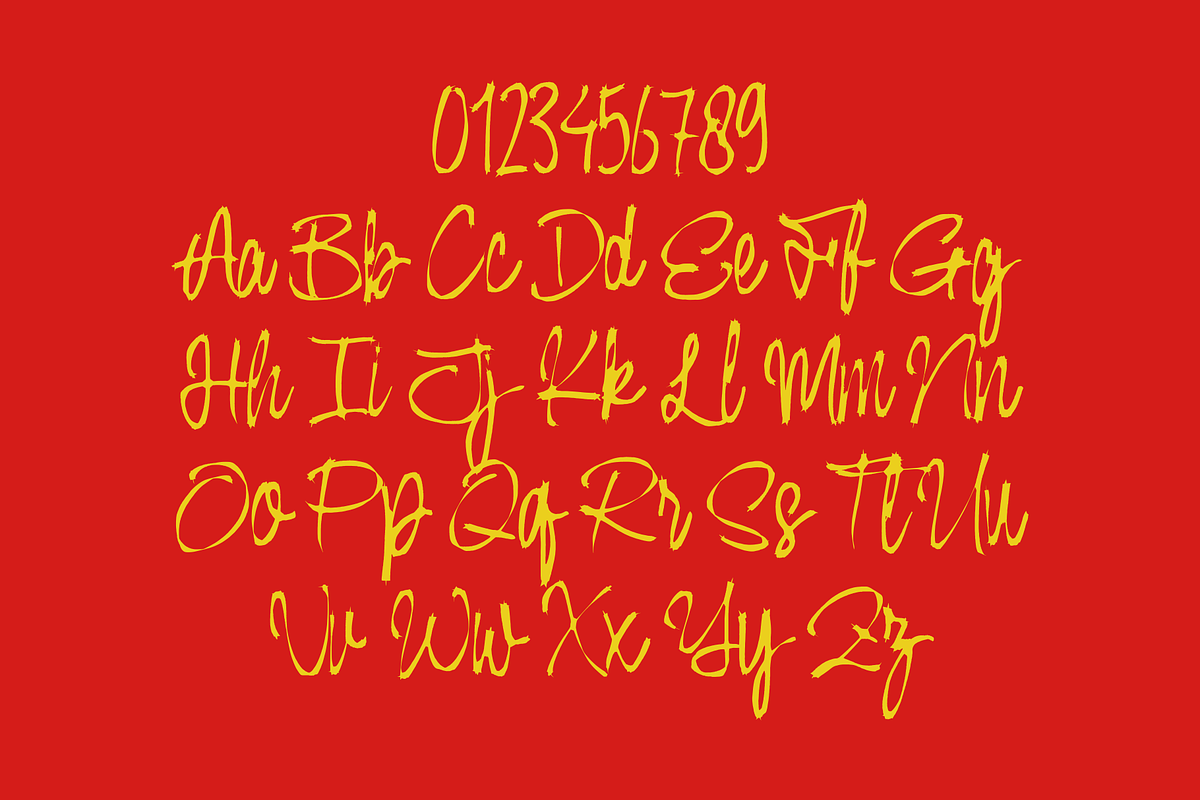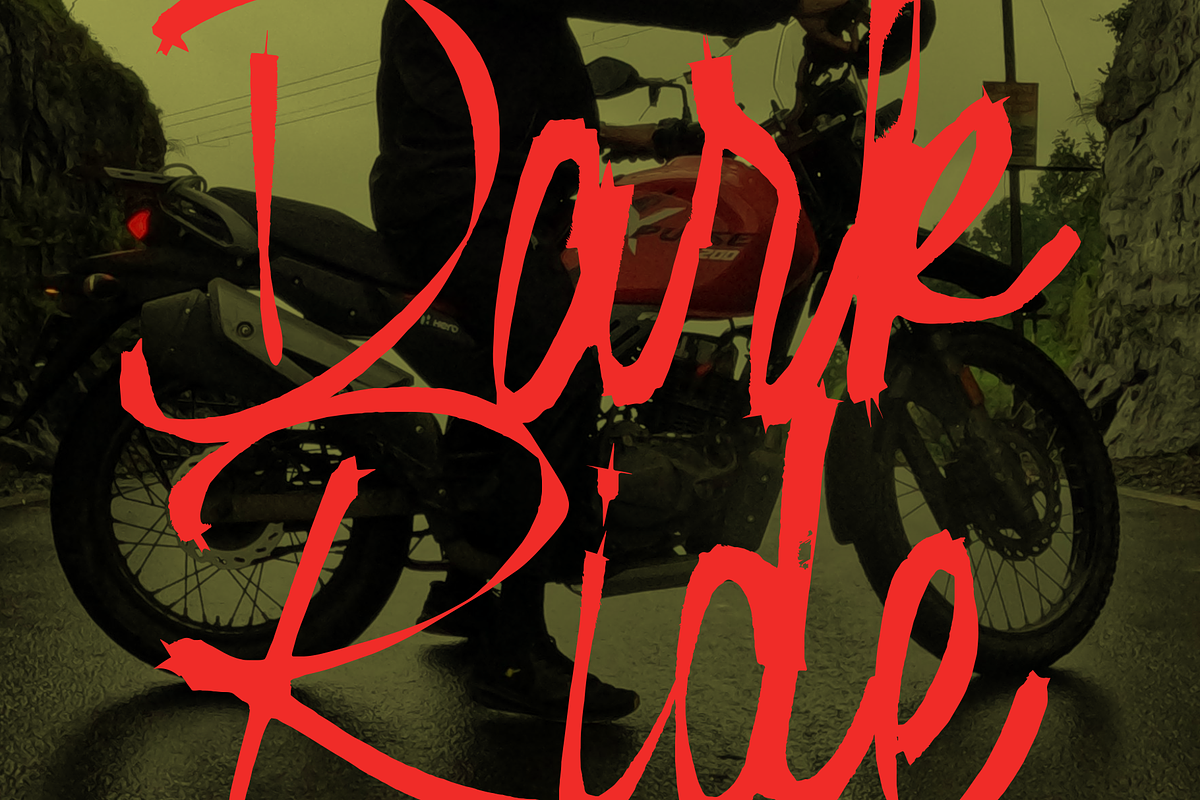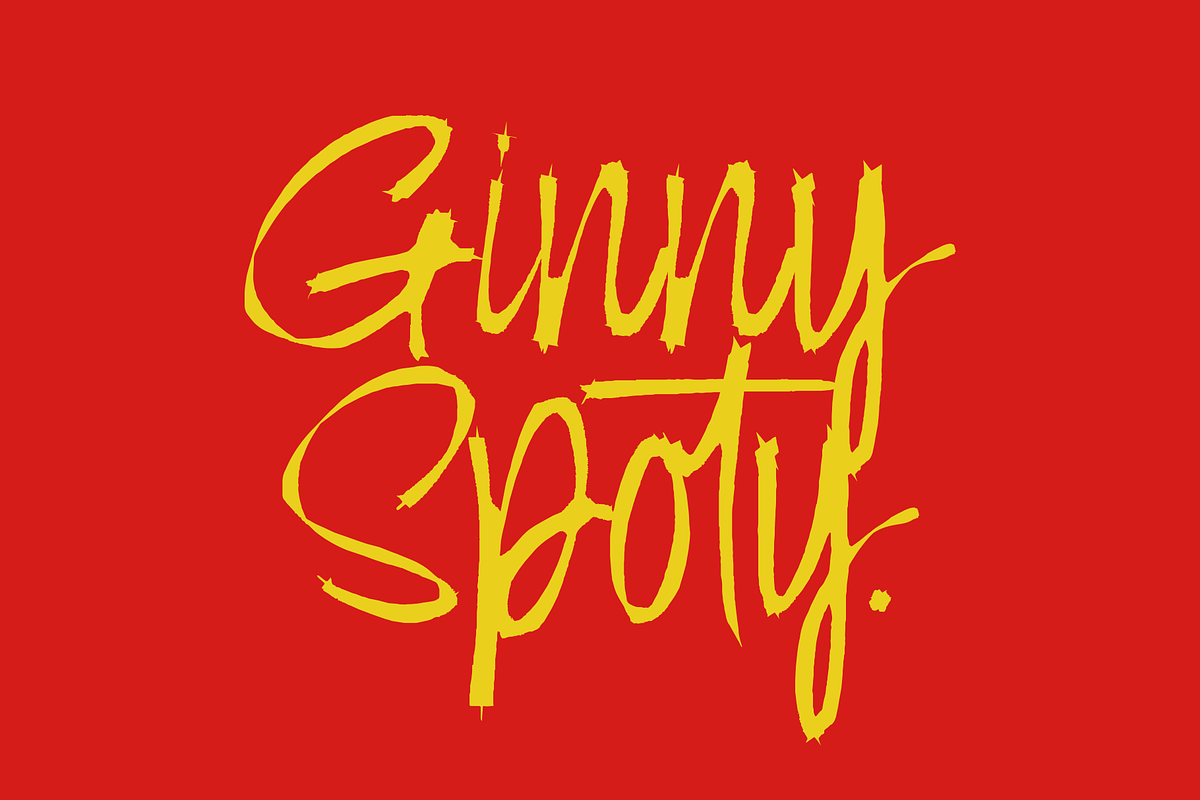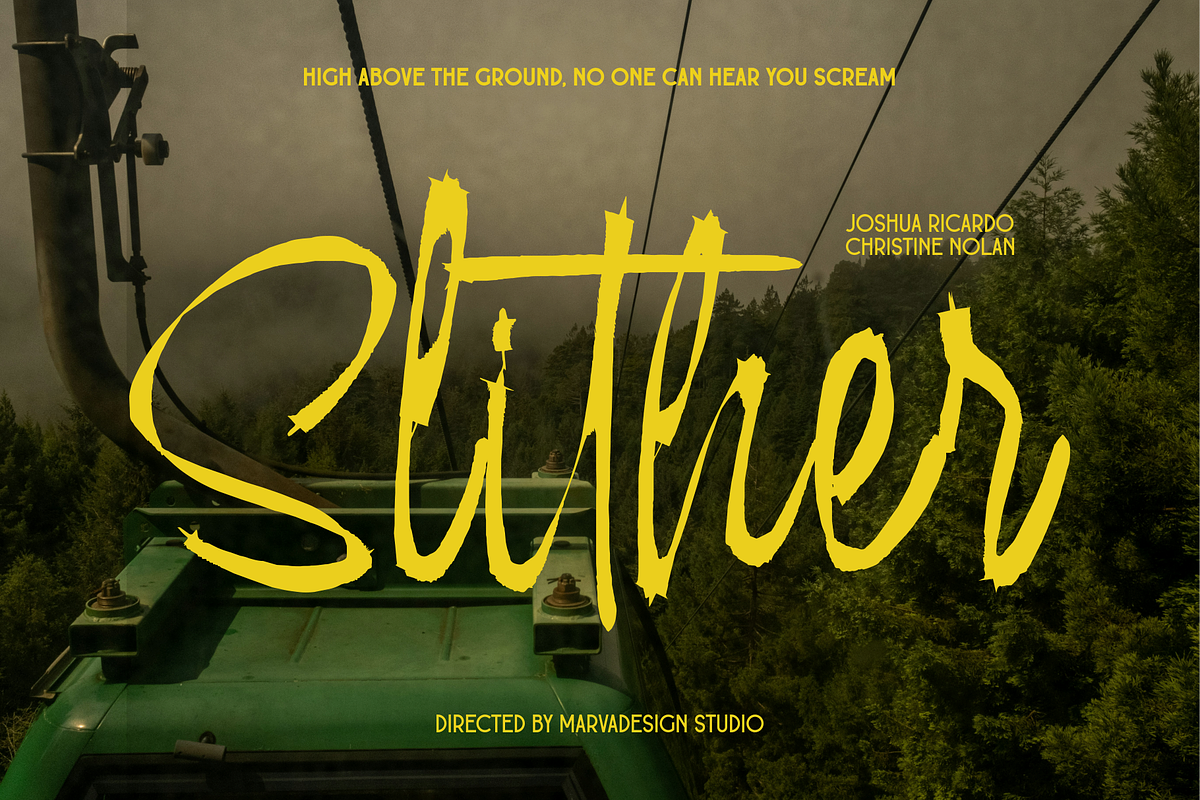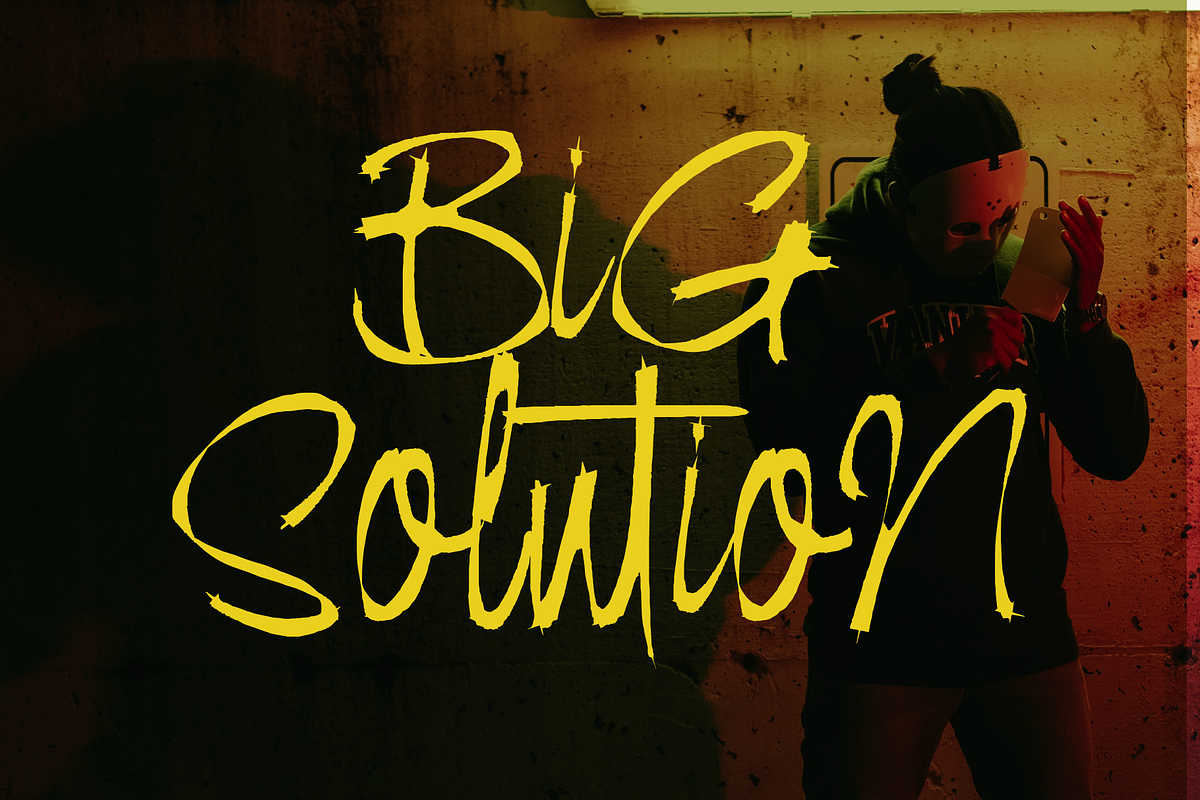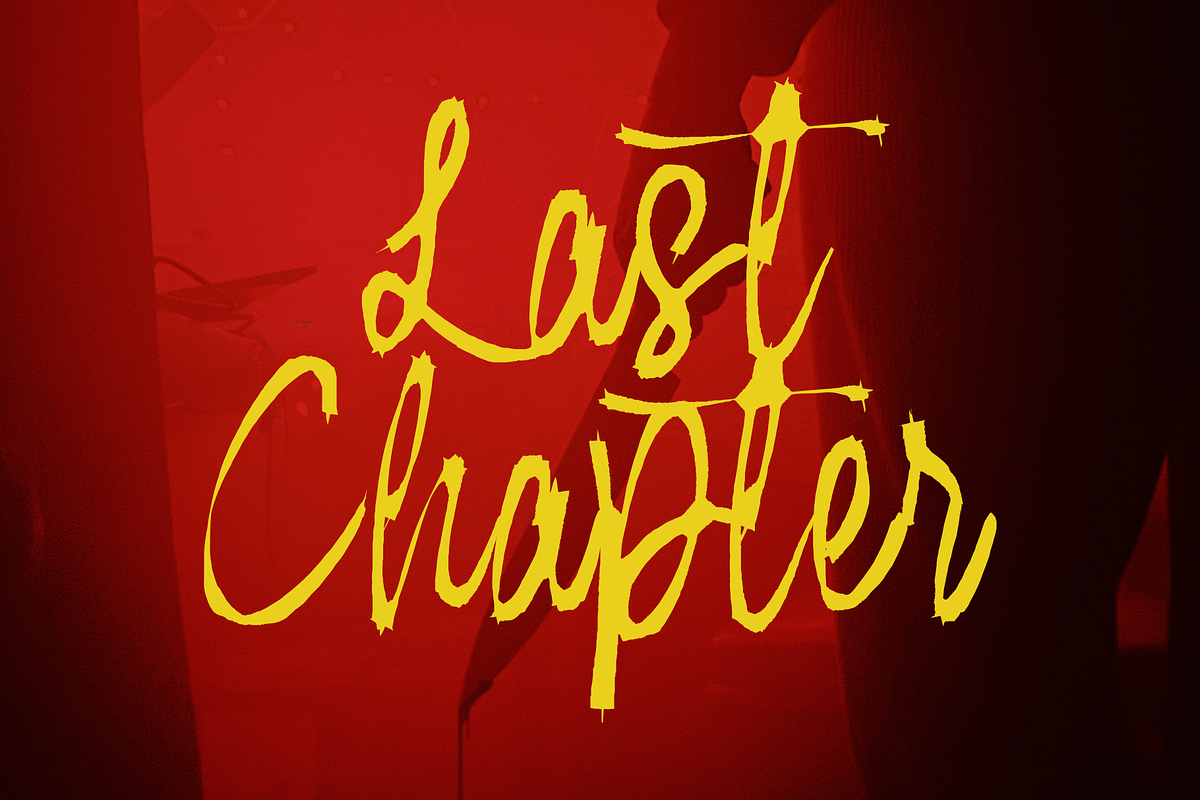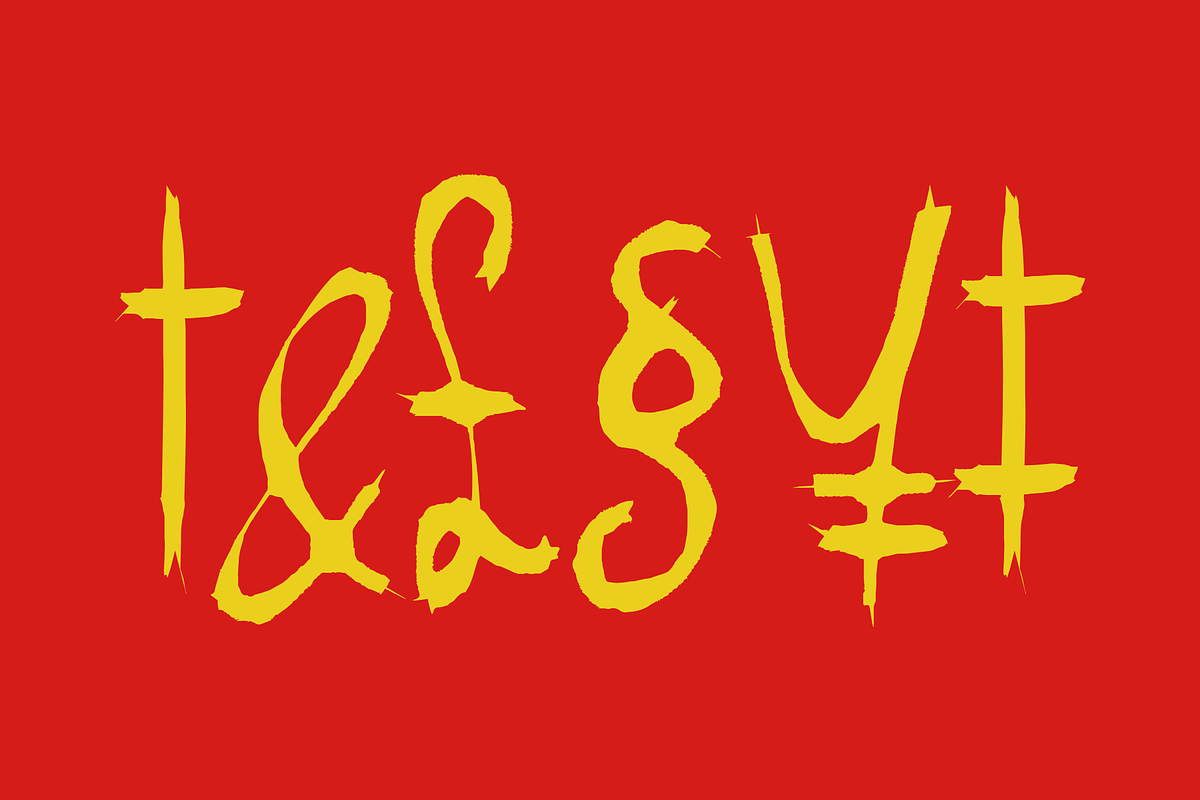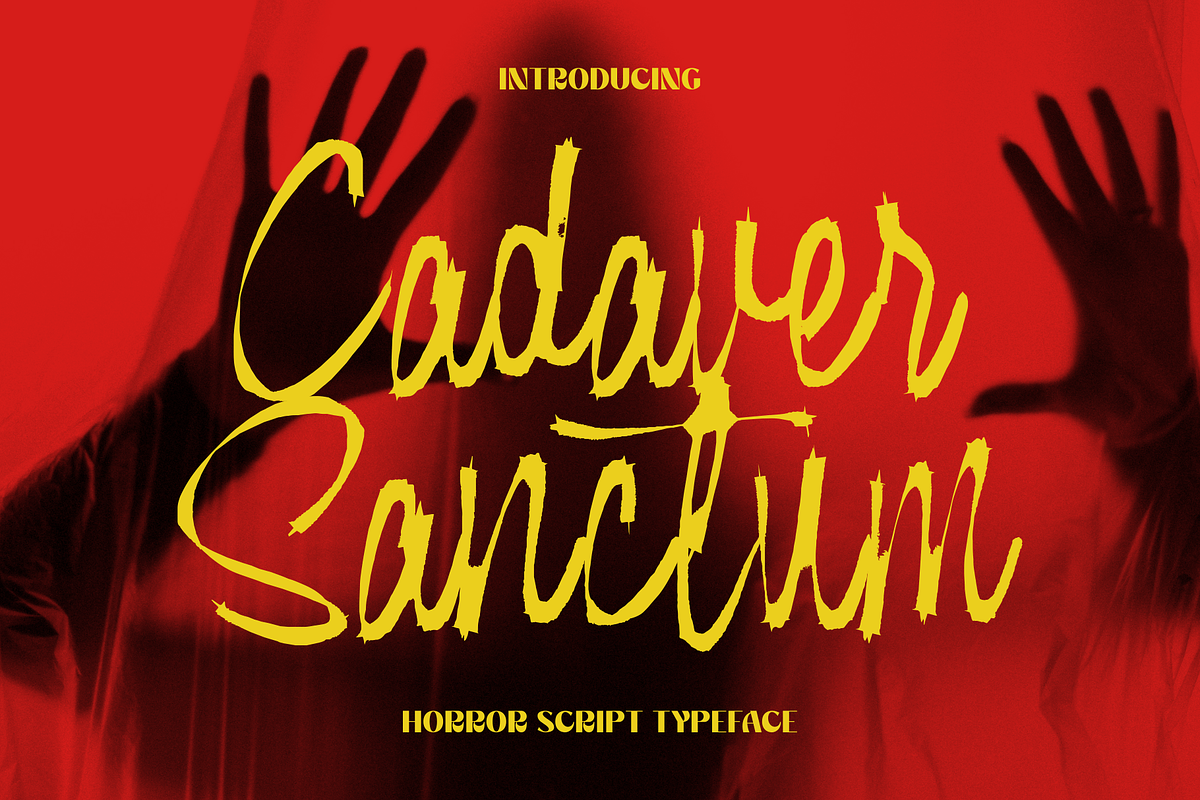
Cadaver Sanctum - Horror Script
Cadaver Sanctum is a horror-themed script font that blends raw, handwritten energy with eerie, unsettling flair. Featuring rough brush strokes, jagged edges, and irregular letterforms, the font evokes a sense of chaos and dread perfectly suited for horror movie posters, thriller book covers, or Halloween themed designs. Its dramatic uppercase characters contrast well with the flowing, slashed lowercase forms, creating a disturbing yet stylish look. The distressed texture mimics ink drag or scratched surfaces, enhancing its creepy aesthetic. This font screams horror while maintaining high legibility for impactful storytelling visuals.